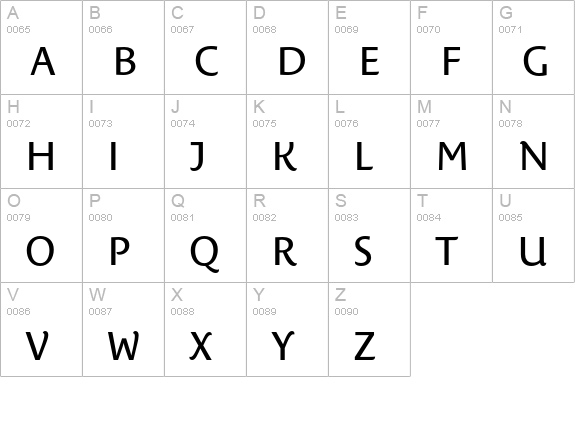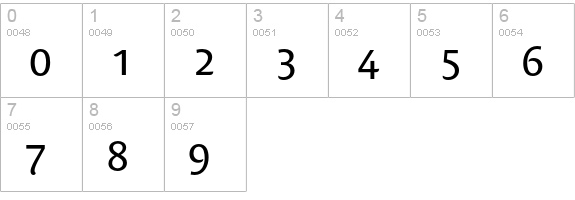
Costa Ptf font is a modern and sleek typeface that exudes elegance and sophistication. With its clean lines and versatile design, Costa Ptf is perfect for a wide range of design projects, from branding to editorial design. This font features a unique combination of sharp edges and smooth curves, creating a balanced and visually appealing look. What makes Costa Ptf even more appealing is that it is available for free download at FontsMarket.com. This means that you can easily access this beautiful font and use it in your projects without any cost. Whether you are a designer looking for a new typeface to add to your collection or a business owner in need of a fresh font for your branding, Costa Ptf is a fantastic choice that won't break the bank. Download it today and elevate your designs with this stunning and versatile font.